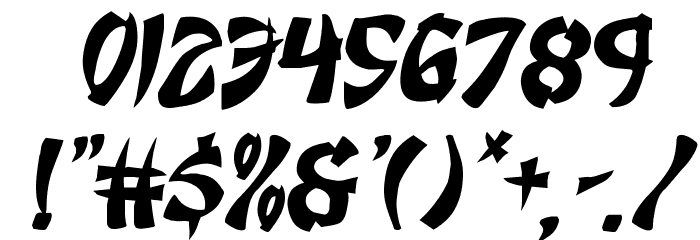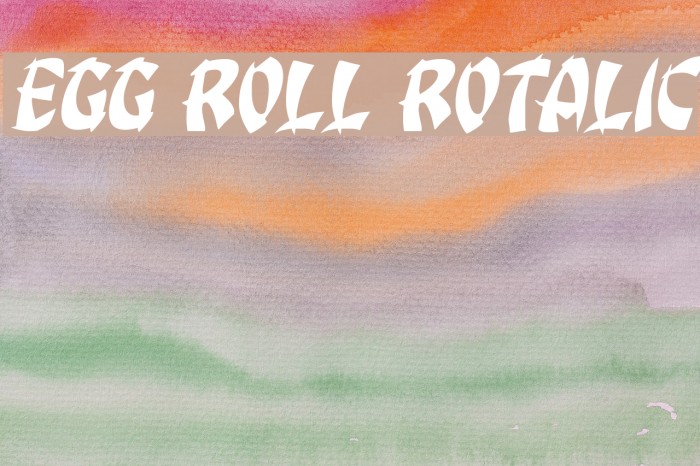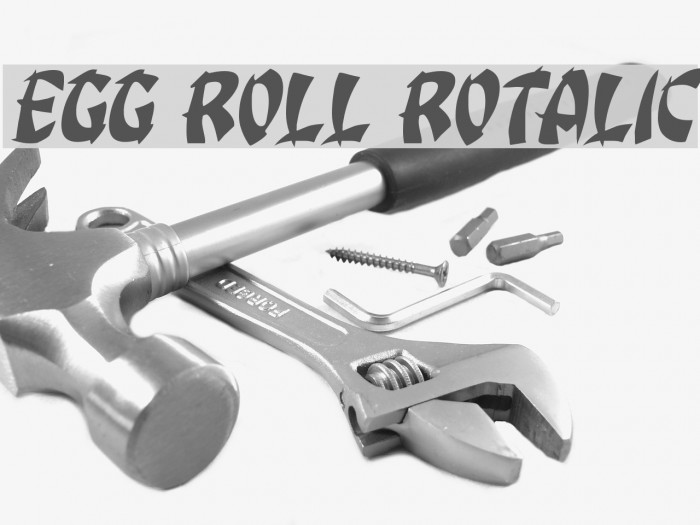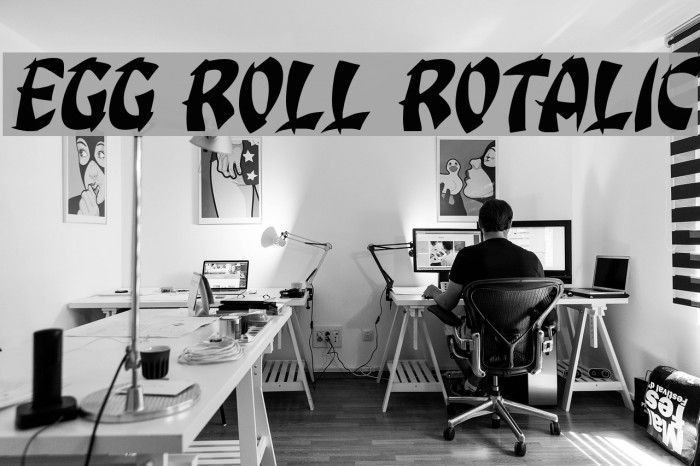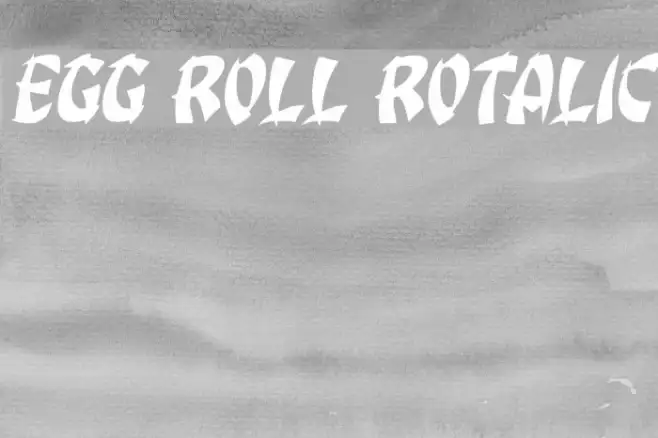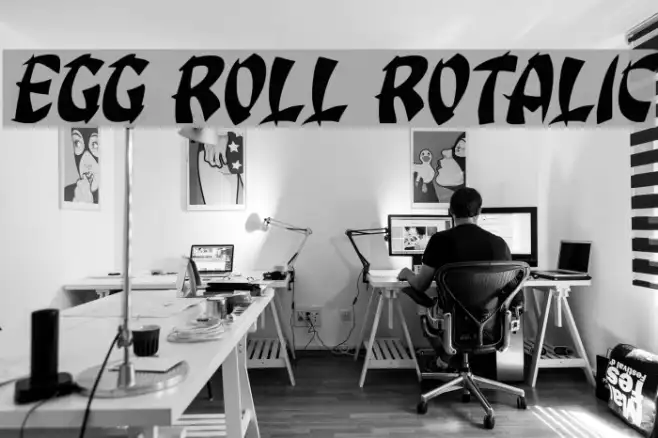
Egg Roll Rotalic Font
This font features a bold and dynamic style with a strong presence. The characters are sharply angled, giving a sense of movement and energy. The strokes are thick and consistent, contributing to a high contrast between the characters and the background. The design is reminiscent of brush strokes, adding a touch of artistic flair. The uppercase and lowercase letters maintain a cohesive look, while the numbers and special characters are equally bold and expressive. This font is ideal for making a statement and capturing attention.
A bold, dynamic font with high contrast and brush-like strokes.
- Proposed Projects: This font is perfect for projects that require a strong visual impact, such as posters, logos, branding materials, and headlines.